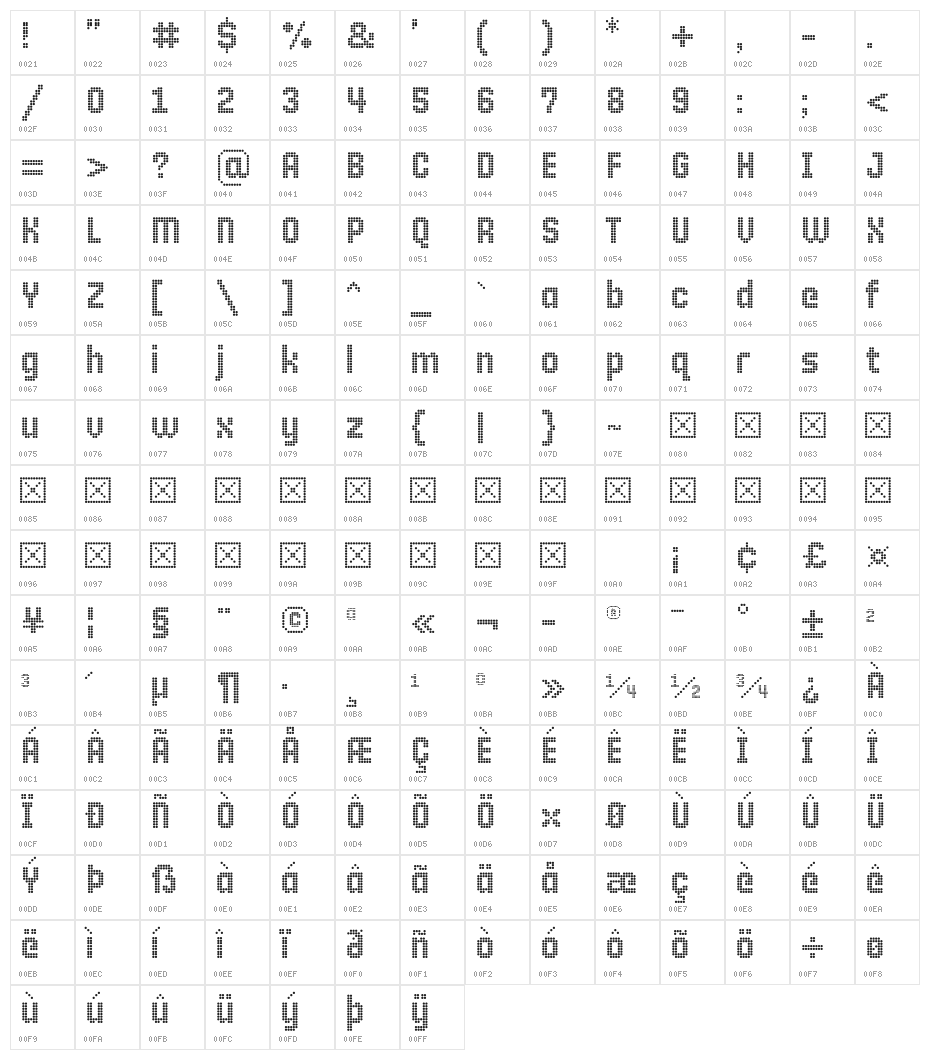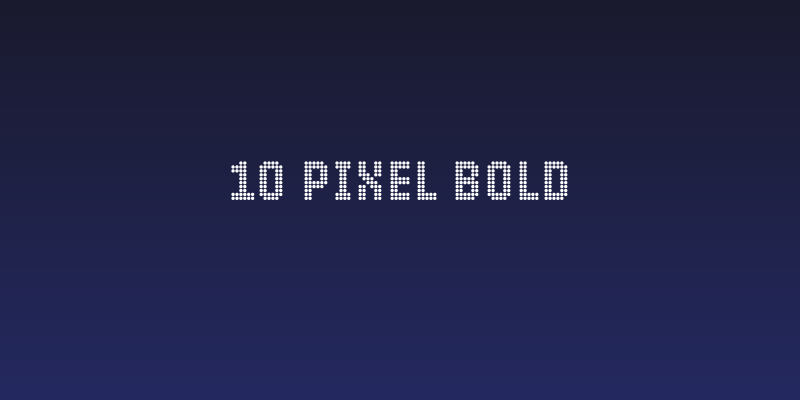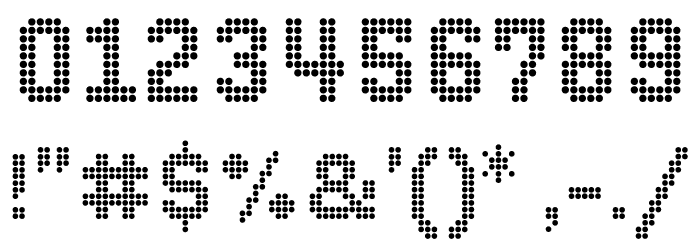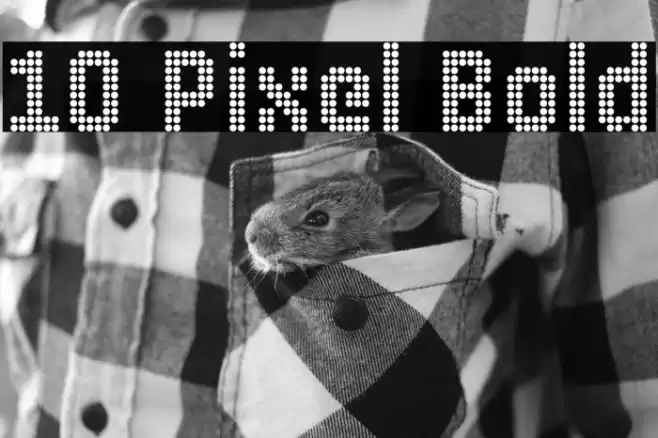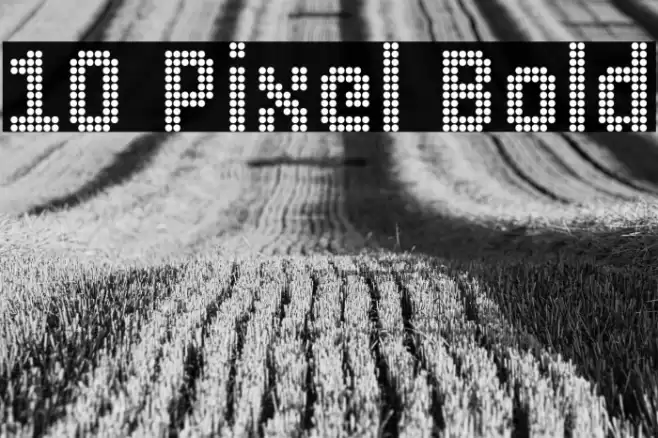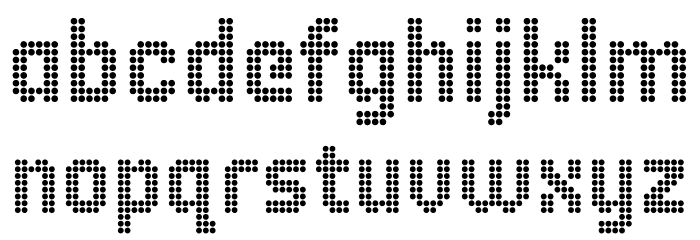
10 Pixel Bold Font
10 Pixel Bold Description
This font features a unique design composed entirely of small, evenly spaced dots forming each character. It has a bold and geometric appearance, creating a digital or pixelated effect reminiscent of early digital displays or LED signs. The uniformity of the dots gives it a structured and modern look, while the boldness ensures high visibility and impact. The font maintains consistent spacing and alignment, making it suitable for designs that require a tech-savvy or futuristic aesthetic.
| Use Case | Headlines, Logos, Digital displays |
| Proposed Projects | Ideal for digital displays, tech-themed posters, video game graphics, and modern branding projects. |